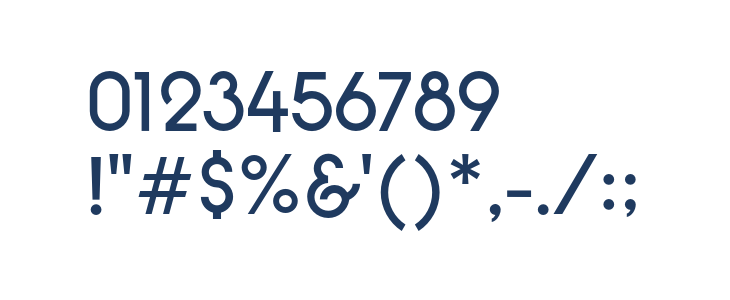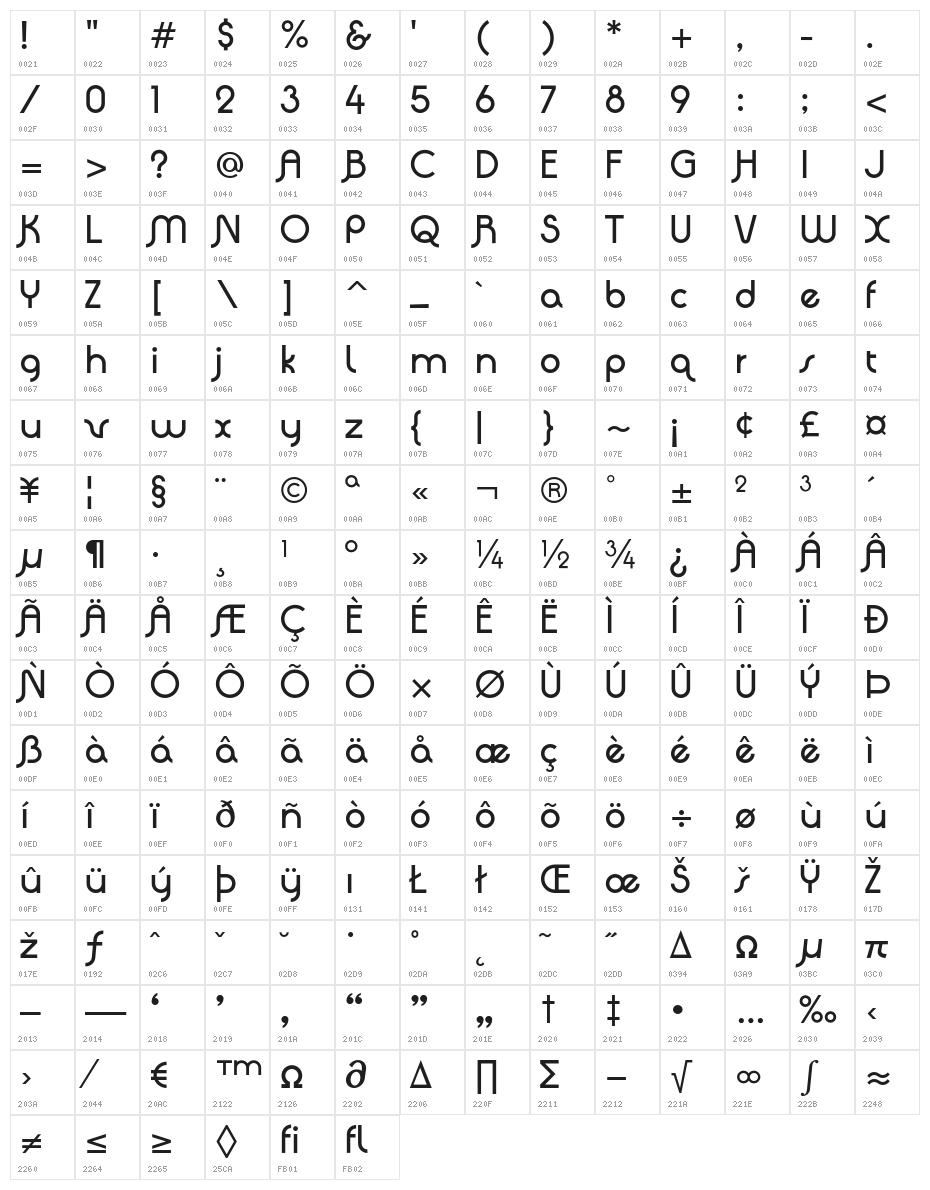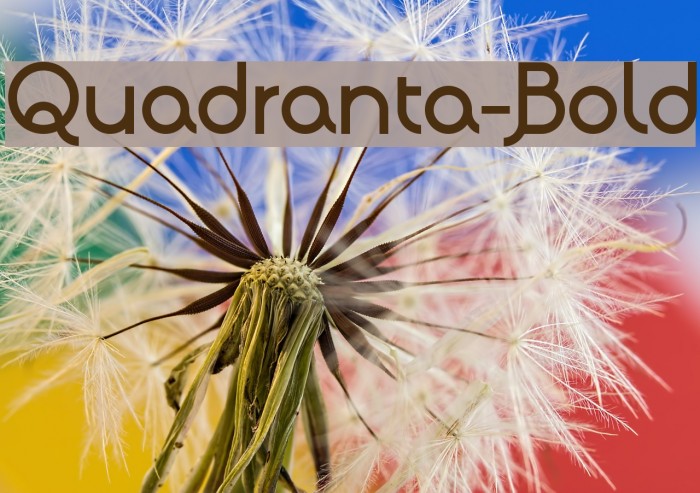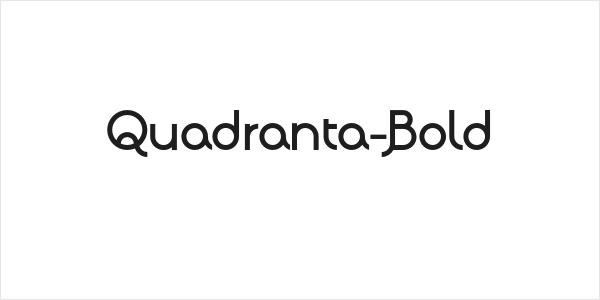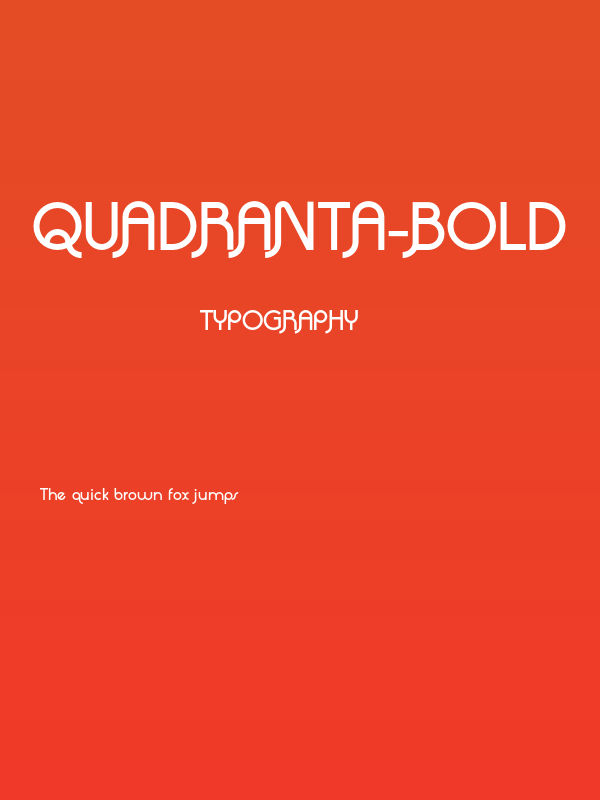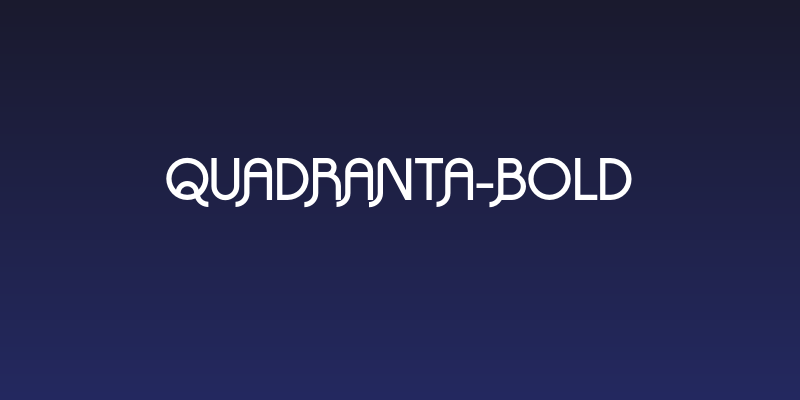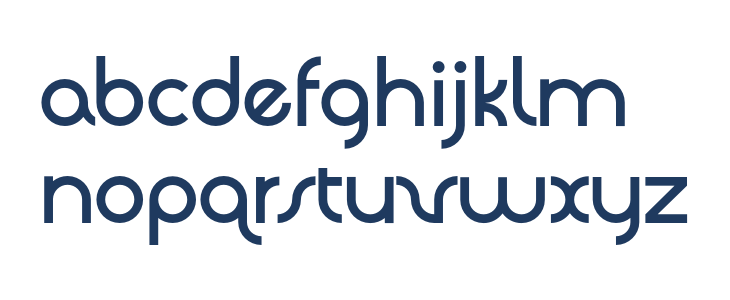
Quadranta-Bold Font
Quadranta-Bold Description
This font features a modern and geometric design with clean, rounded edges and a uniform stroke width. The characters are well-balanced, offering a harmonious blend of curves and straight lines. The uppercase letters are bold and assertive, while the lowercase letters maintain a consistent flow. Numbers and special characters are designed with clarity and simplicity, making them easily readable. The overall appearance is sleek and contemporary, suitable for a variety of digital and print applications.
| Use Case | Headlines, Logos, Digital interfaces |
| Proposed Projects | Ideal for branding, digital interfaces, advertising, and editorial design where a modern and clean aesthetic is desired. |